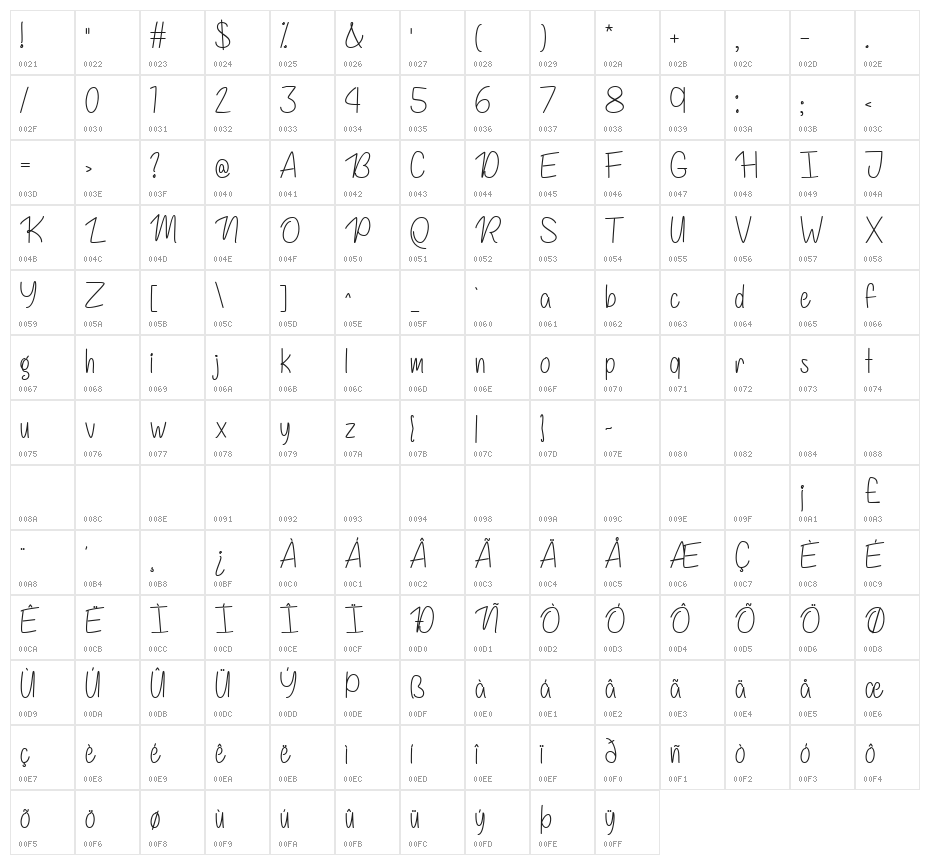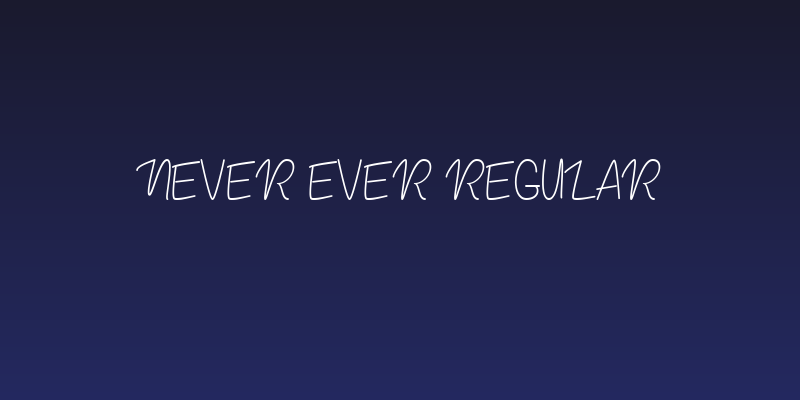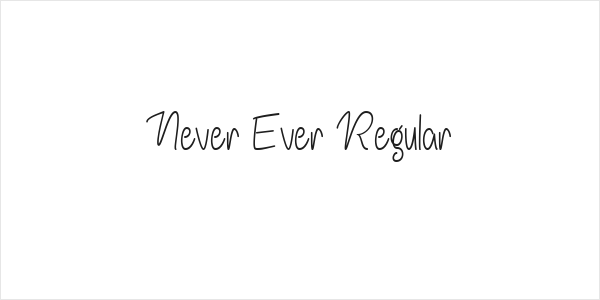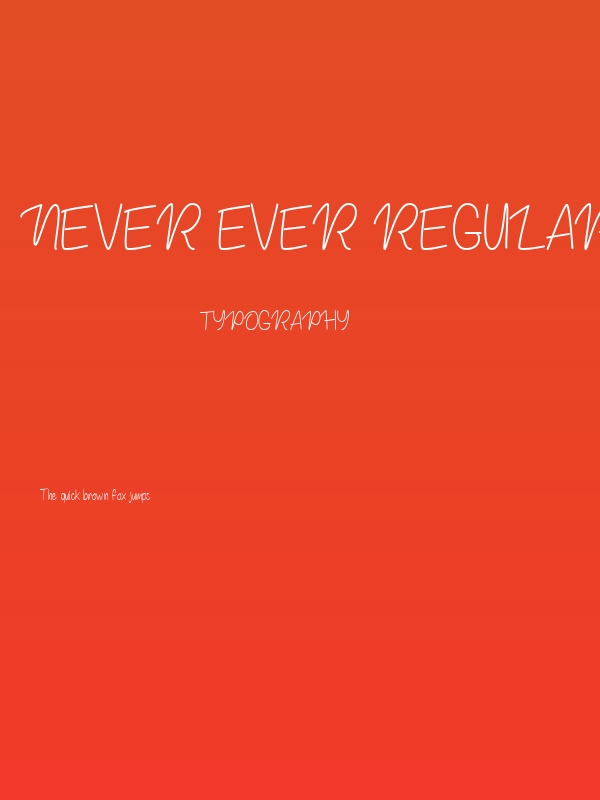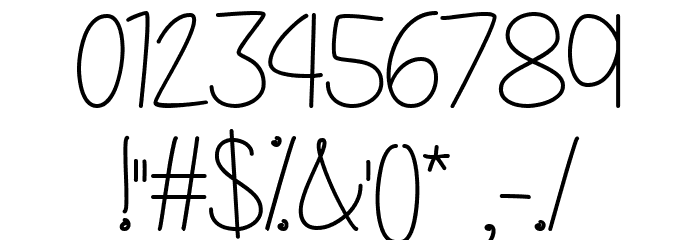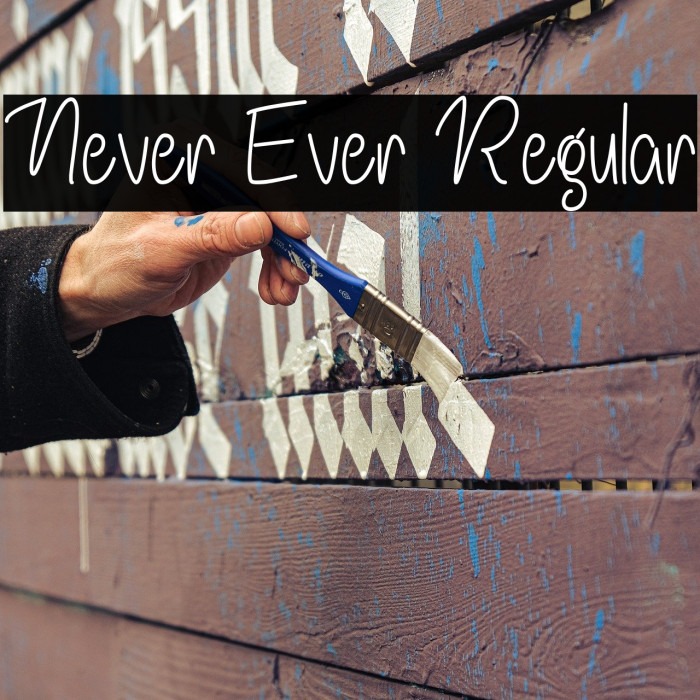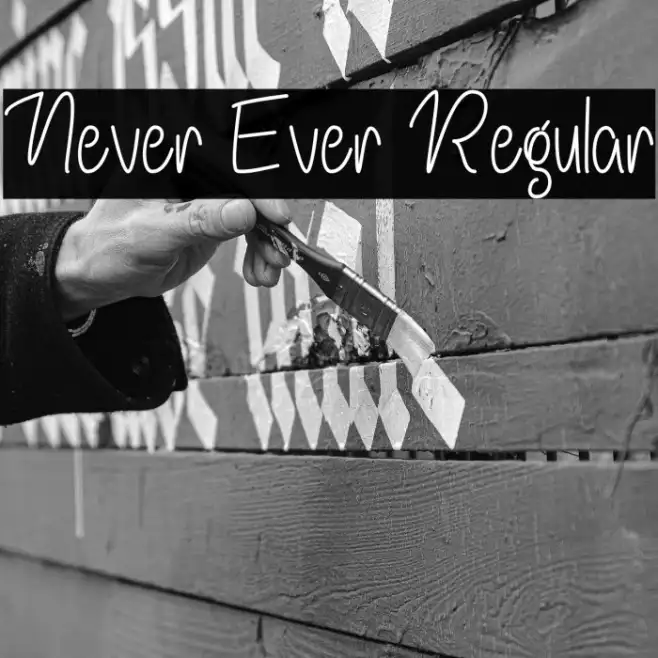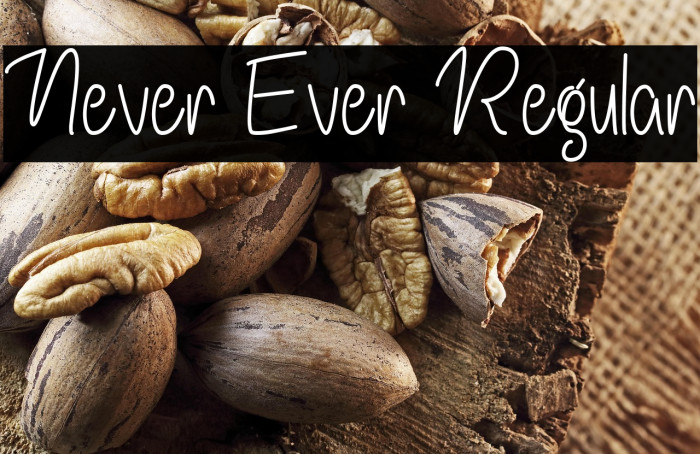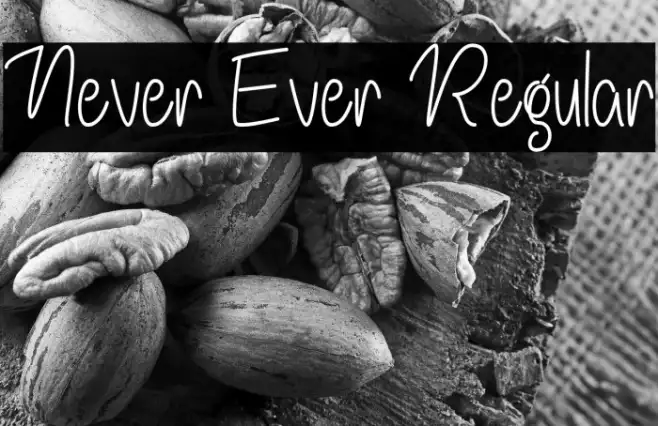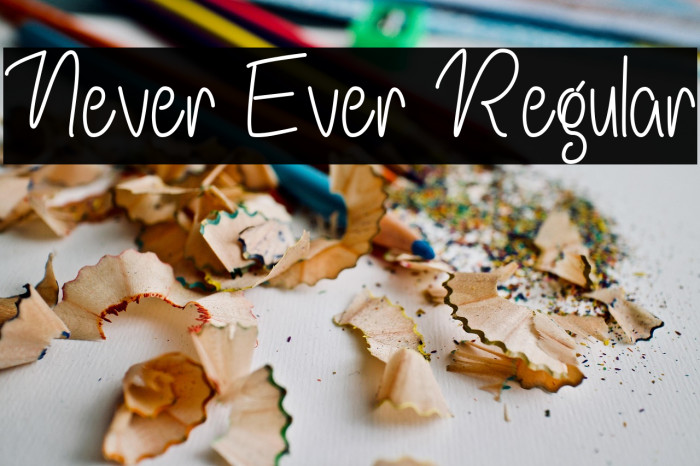
Never Ever Regular Font
Never Ever Regular Description
This font features a playful and casual handwritten style, characterized by its smooth curves and slightly irregular letterforms. The uppercase letters are tall and slender, while the lowercase letters maintain a consistent flow, giving the font a friendly and approachable appearance. The numerals are rounded and align well with the overall style, adding to the cohesive look. Special characters are thoughtfully designed to match the font's whimsical nature. The overall design is clean and legible, making it suitable for a variety of creative projects.
| Proposed Projects | Ideal for greeting cards, children's books, casual branding, and social media graphics. |